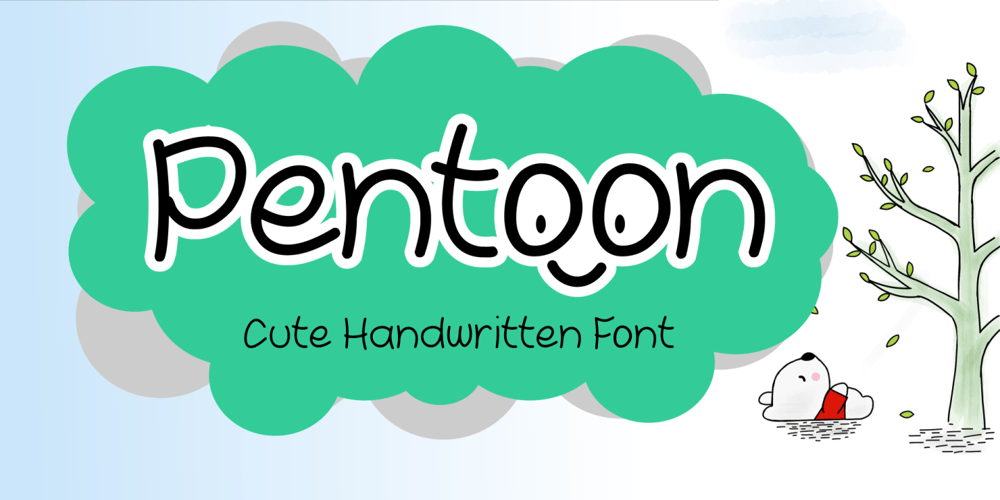
Pentoon
Pentoon font
Pentoon Font Family was designed by Ahmad Zulfikar Ali and published by ZetDesign. Pentoon contains 1 styles and family package options. Pentoon is a cute cartoon-themed font with a touch of handwriting. This font is very suitable for use in every comic and cartoon project. and very suitable in designing t-shirts, posters, flyers, and others.